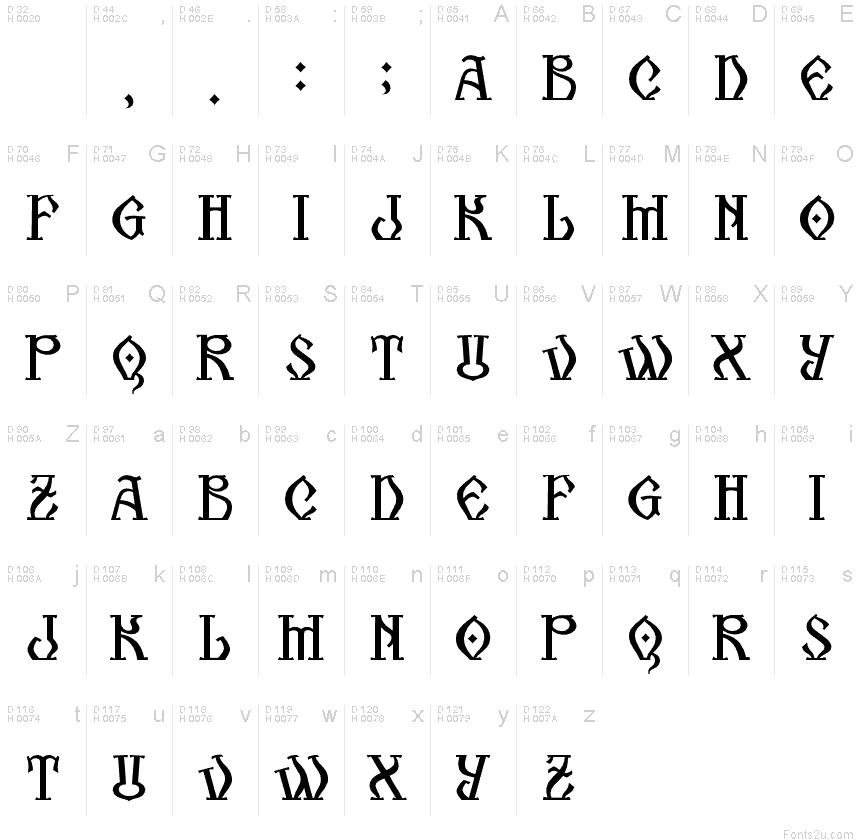
KogaionESS is a free Celtic Gothic display font with tall, ceremonial letterforms and sharply flared strokes. Broad curves meet needle-thin joins, giving the alphabet the look of carved initials from an imagined medieval manuscript. Diamond-shaped details and forked serifs recur throughout.
It is particularly suited to fantasy game titles and historical event posters. Album covers also fit its theatrical silhouette. The knot-like curves and heraldic shapes connect these uses to medieval legend, ritual, and folklore.
KogaionESS